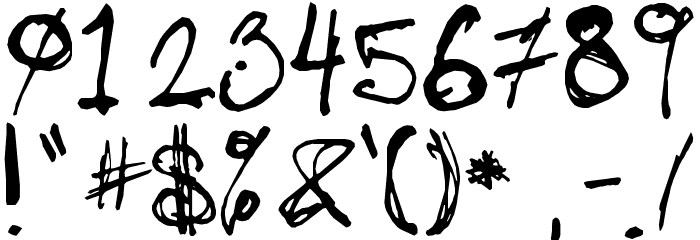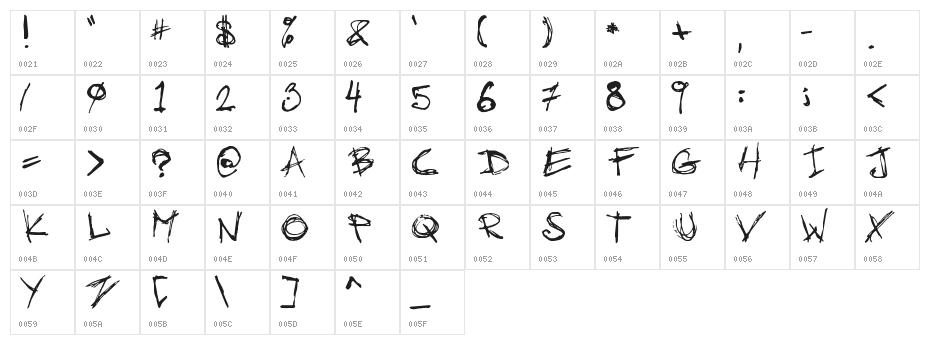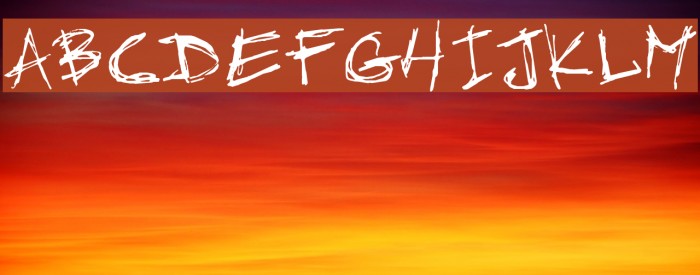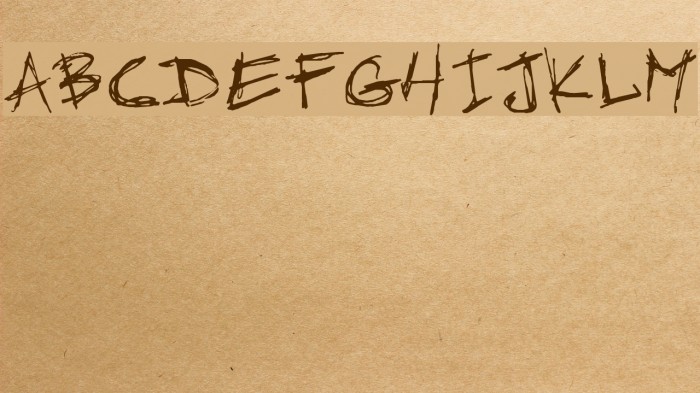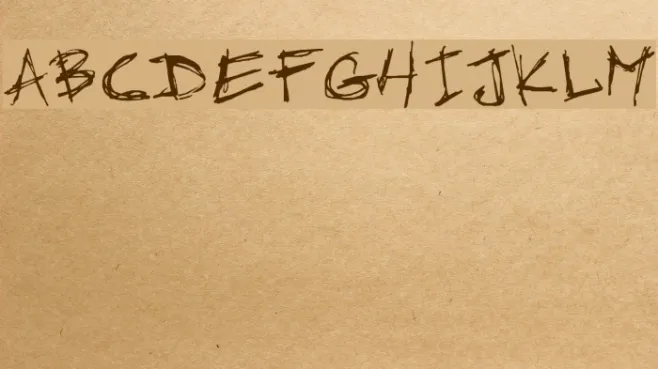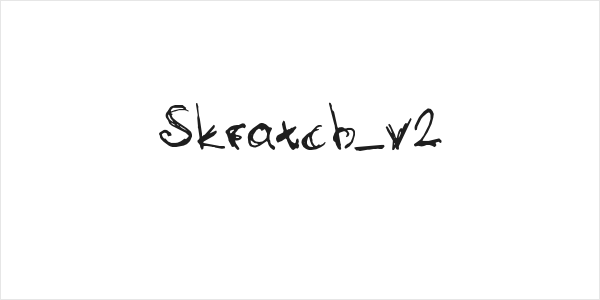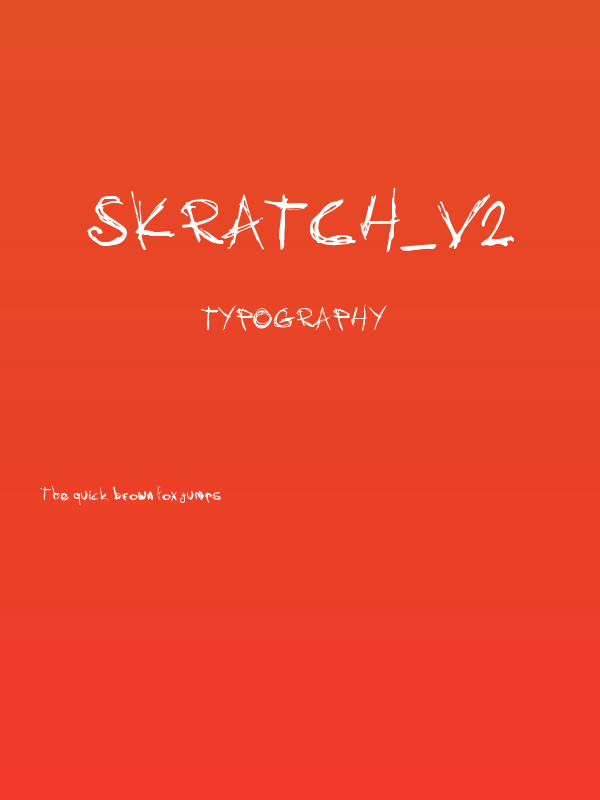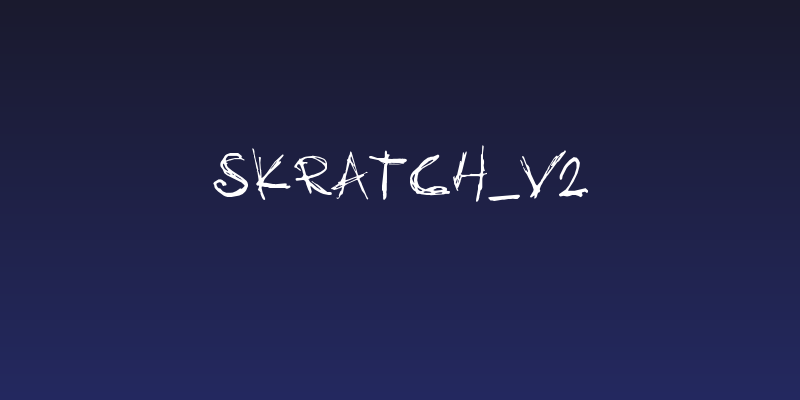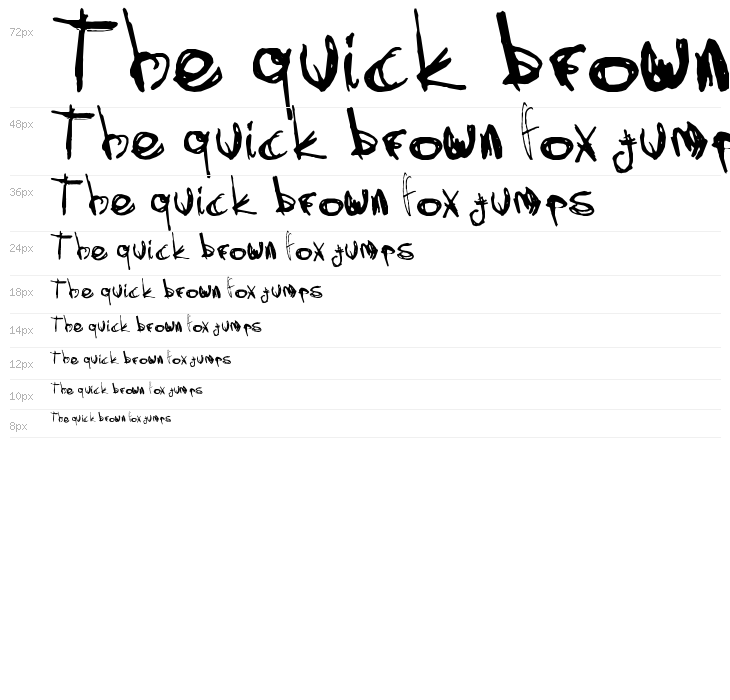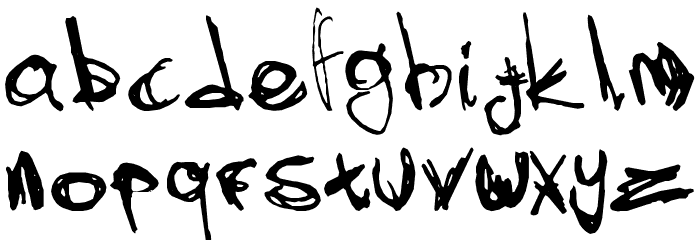
Skratch_v2 Font
Skratch_v2 Description
This font features a dynamic and edgy style, characterized by its rough, hand-drawn appearance. The letters are irregular and have a scratchy texture, giving them a raw and expressive look. The uppercase and lowercase letters maintain a consistent style, with exaggerated strokes and uneven lines that convey a sense of urgency and movement. The numbers and special characters follow the same aesthetic, adding to the overall cohesive design. This font is ideal for projects that require a bold and unconventional look, such as album covers, posters, or any creative work that aims to stand out.
| Overall Style | Edgy, Urban, Expressive |
| Proposed Projects | Album covers, posters, graffiti art, streetwear branding, edgy advertising campaigns. |